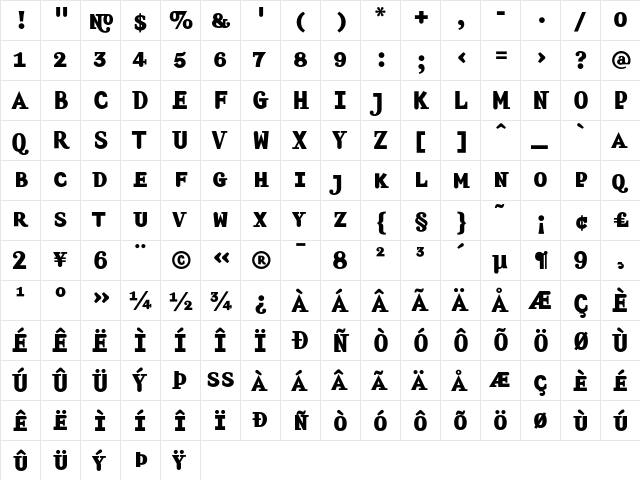
Amplifier BoldSmallCaps Font Preview
Amplifier BoldSmallCaps
Amplifier BoldSmallCaps Font Details
| Style | BoldSmallCaps |
| Copyright | Copr. 1995 [T-26] Chicago, Illinois & Frank Heine, Designer |
Design Context for Amplifier Typeface
Amplifier is a composed and adaptable typeface that performs quietly and consistently across a wide range of design contexts. The heavy weight commands attention and anchors typographic hierarchies.